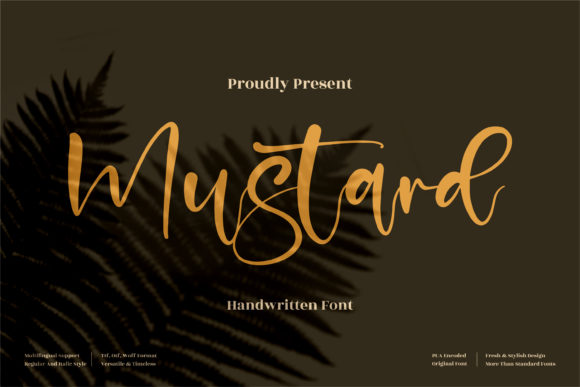
Indulge in the captivating allure of Mustard Font, a masterpiece crafted to elevate your designs with ethereal elegance. This enchanting script font, lovingly brought to life by Perspectype, boasts a harmonious balance between delicate strokes and graceful curves, making each letter a work of art.
Step into a world of boundless creativity, where Mustard Font becomes your trusty companion, guiding you effortlessly through the realm of enchanting designs. Whether you seek to craft exquisite wedding place cards, heartfelt invitations, or captivating social media posts, this font will effortlessly elevate your creations, leaving an everlasting impression on all who behold them.
With its captivating versatility, Mustard Font empowers you to unleash your imagination and explore a myriad of design possibilities. Its alluring charm lends itself seamlessly to both formal and whimsical occasions, making it the perfect choice for everything from elegant wedding invitations to playful party posters.
Prepare to be swept away by the undeniable beauty of Mustard Font. Experience the joy of creating designs that resonate with your emotions, capturing the hearts of your audience with its irresistible allure. Let this extraordinary font be your guiding light, illuminating your path toward design excellence.